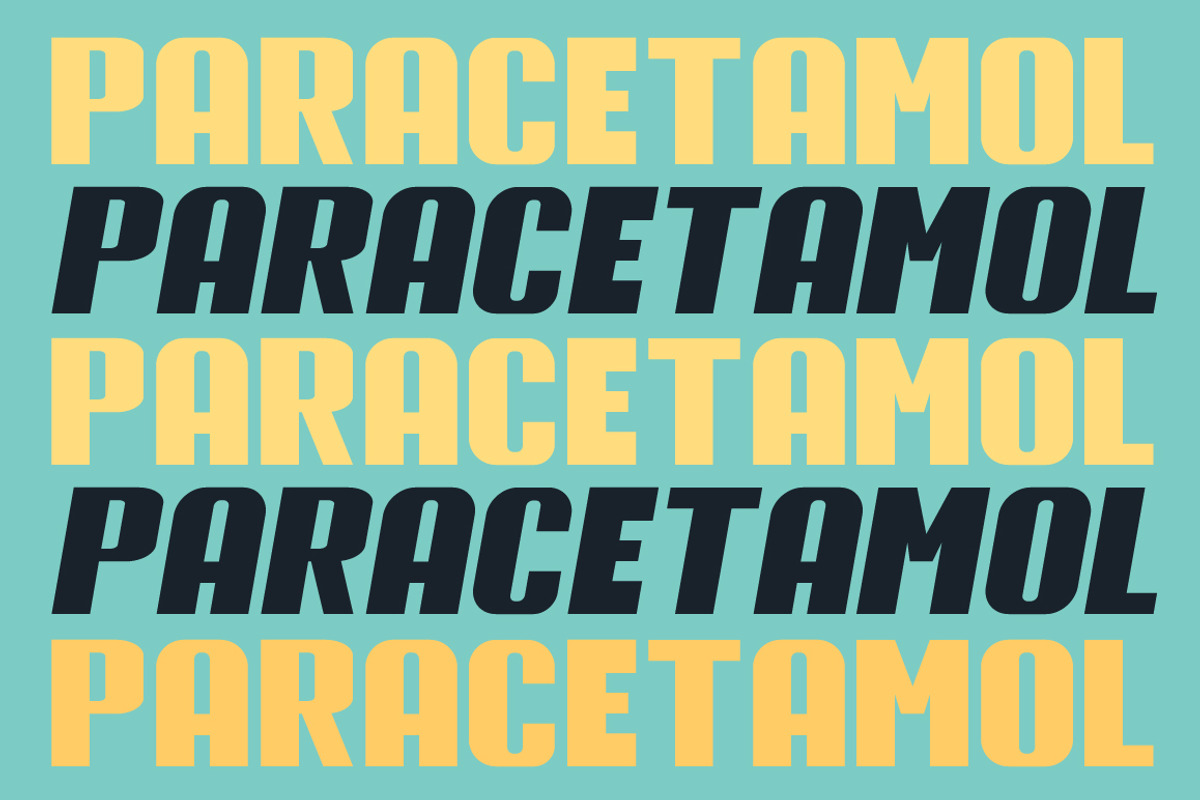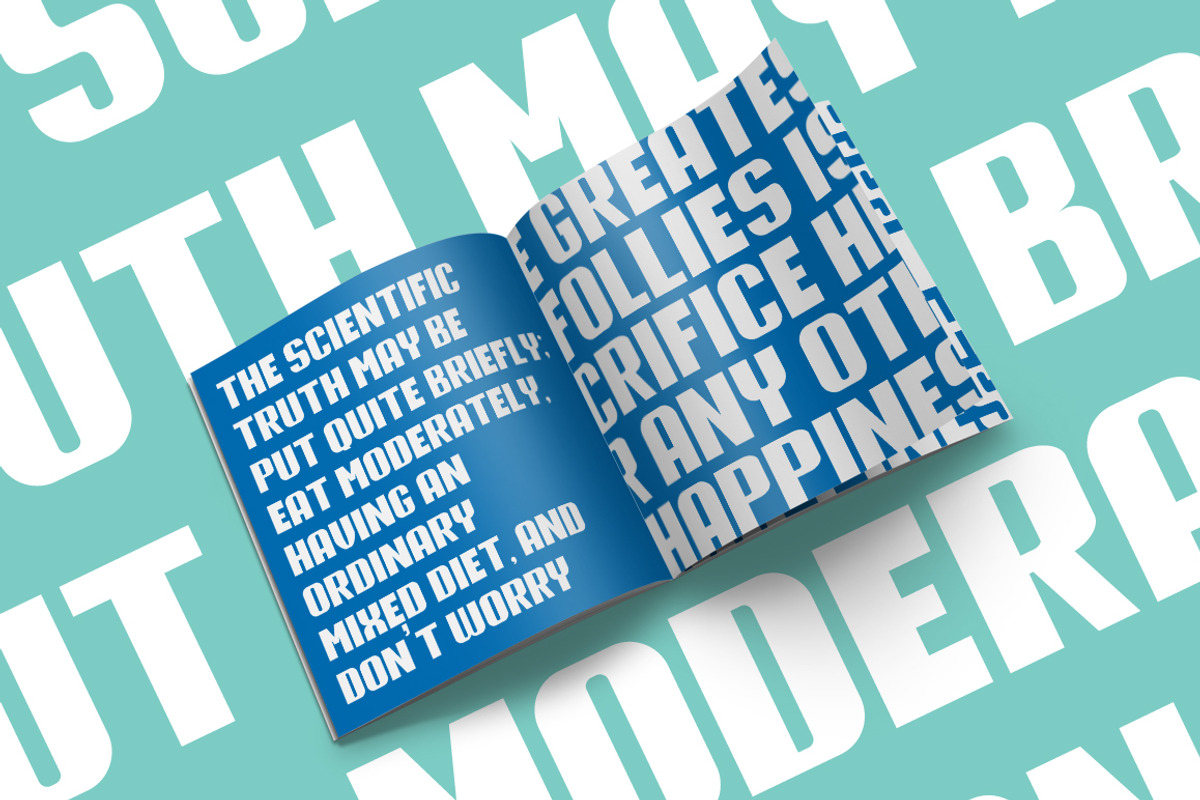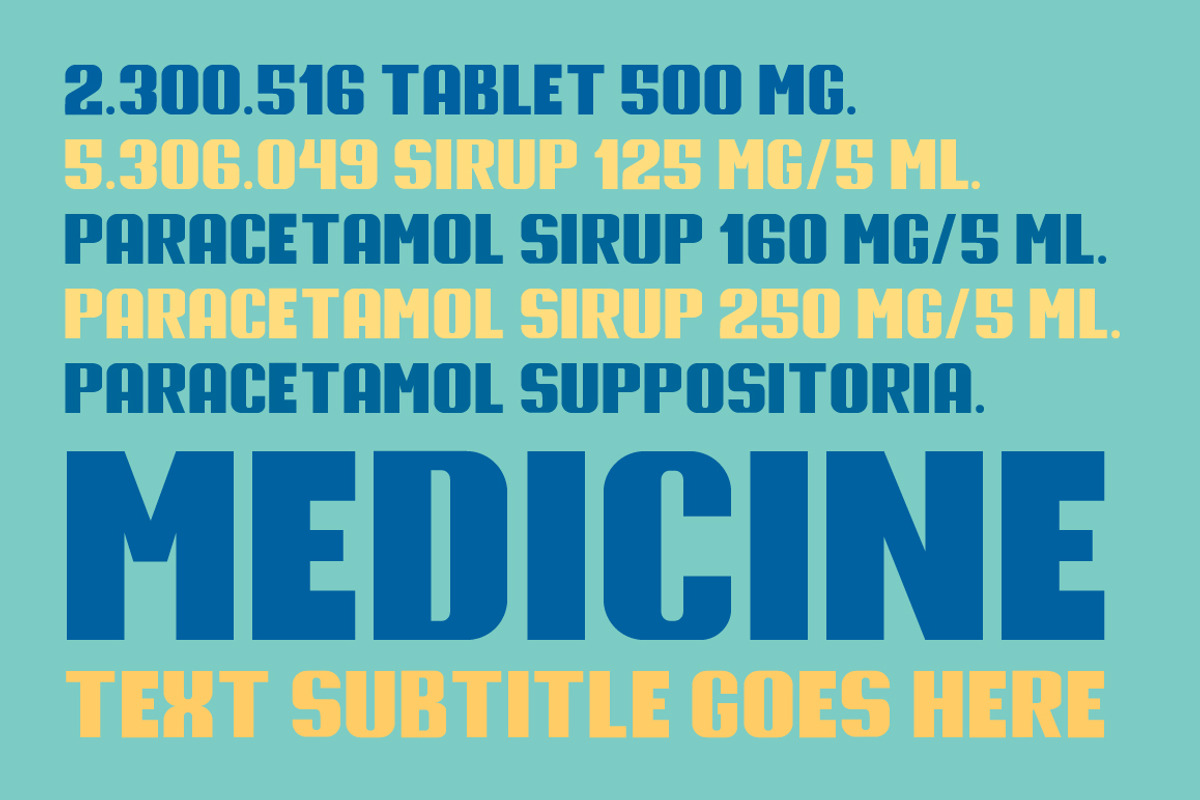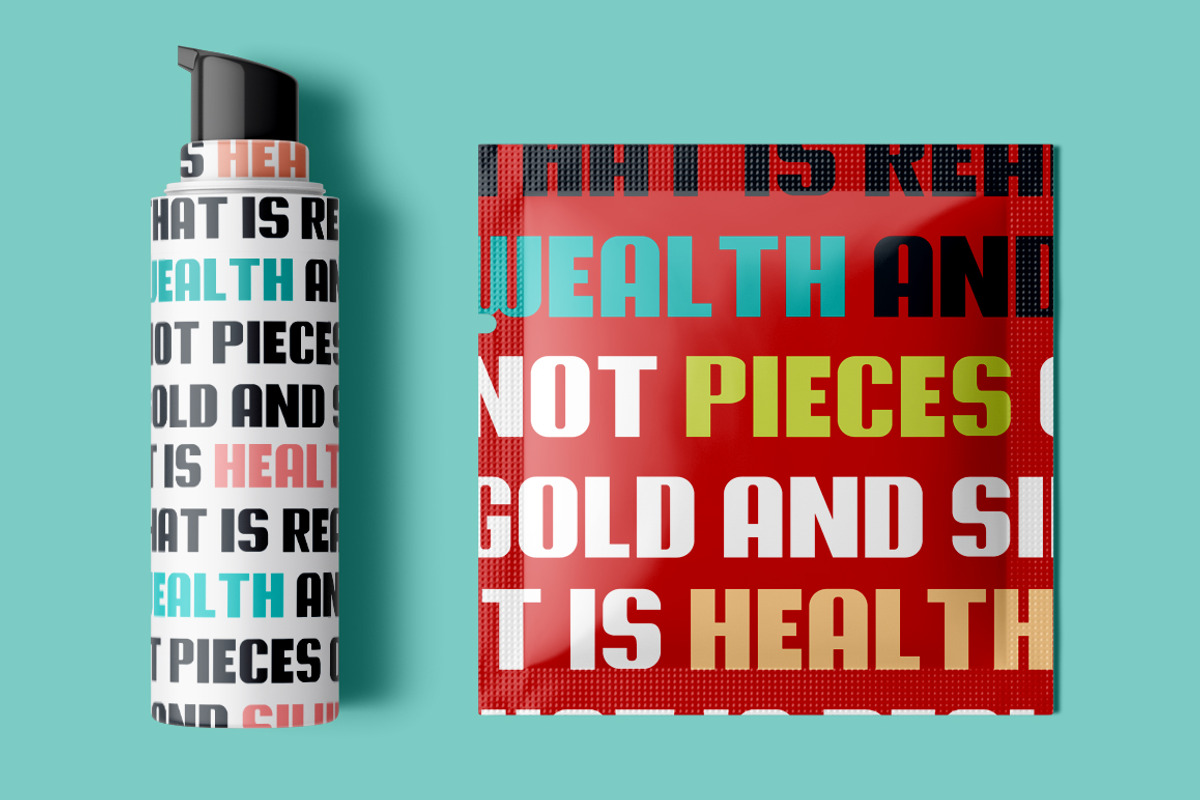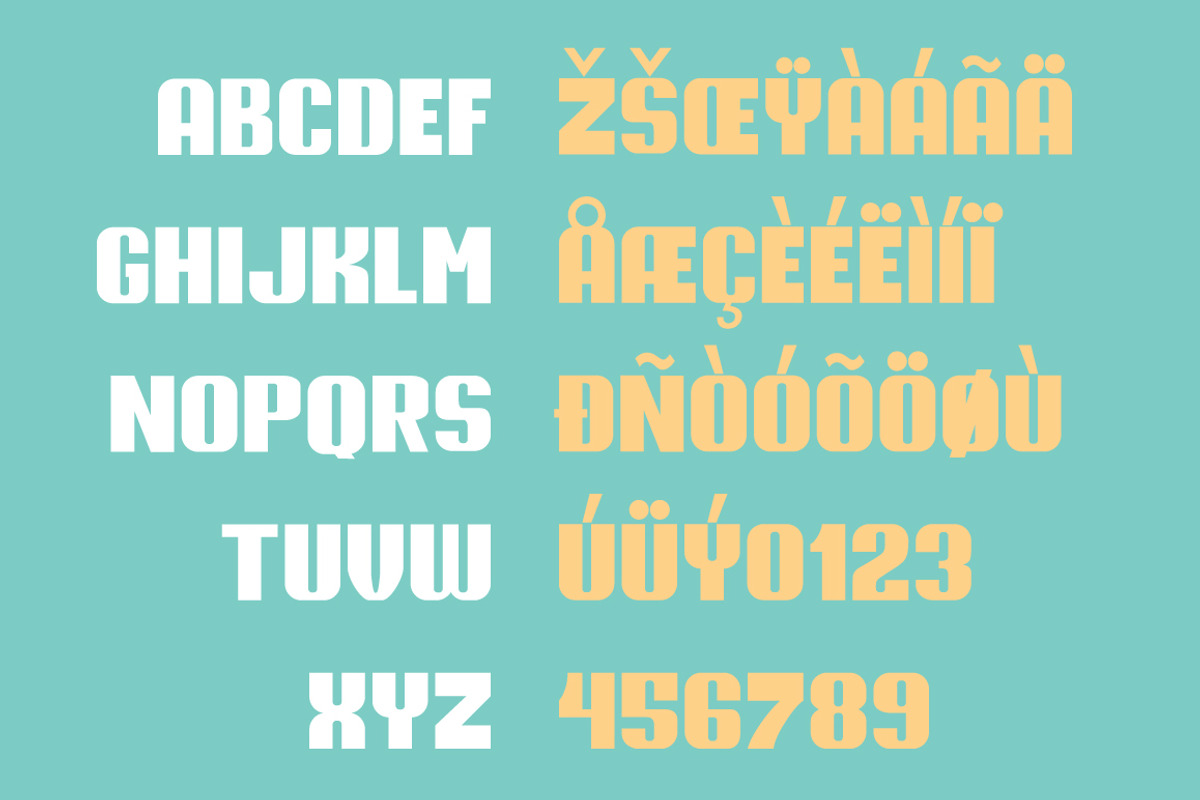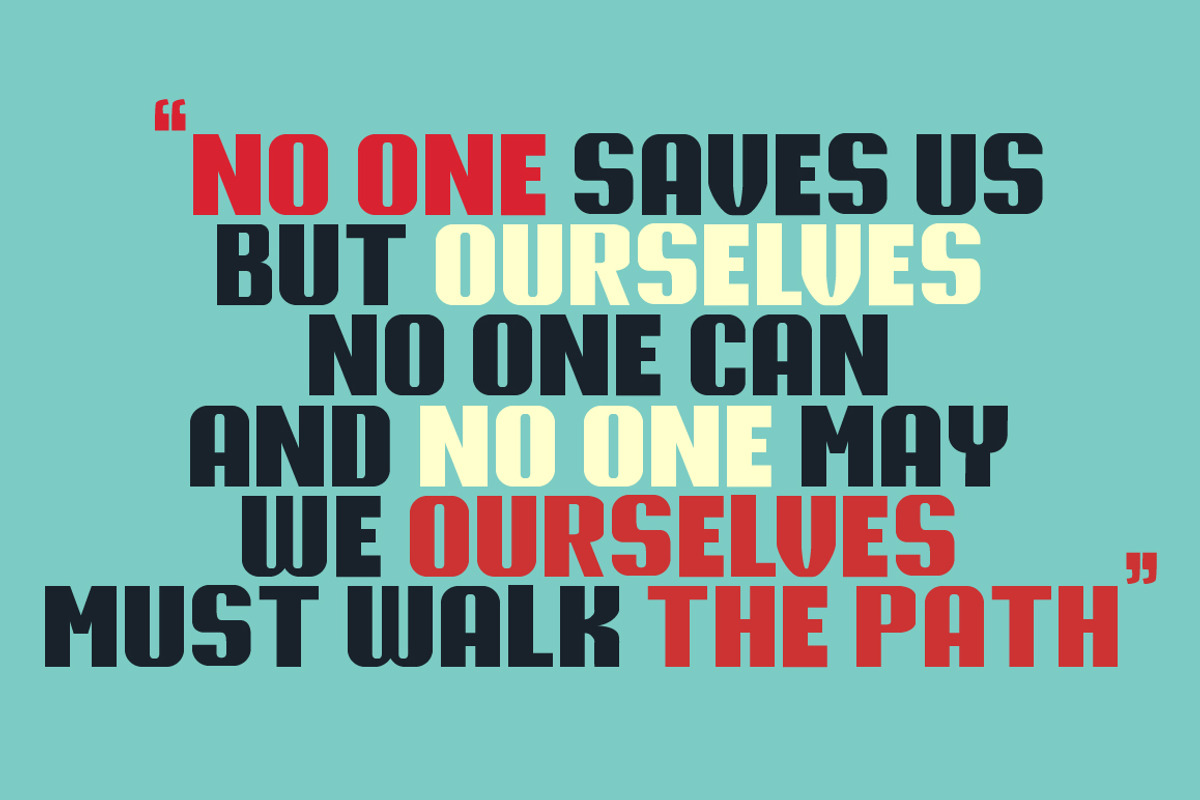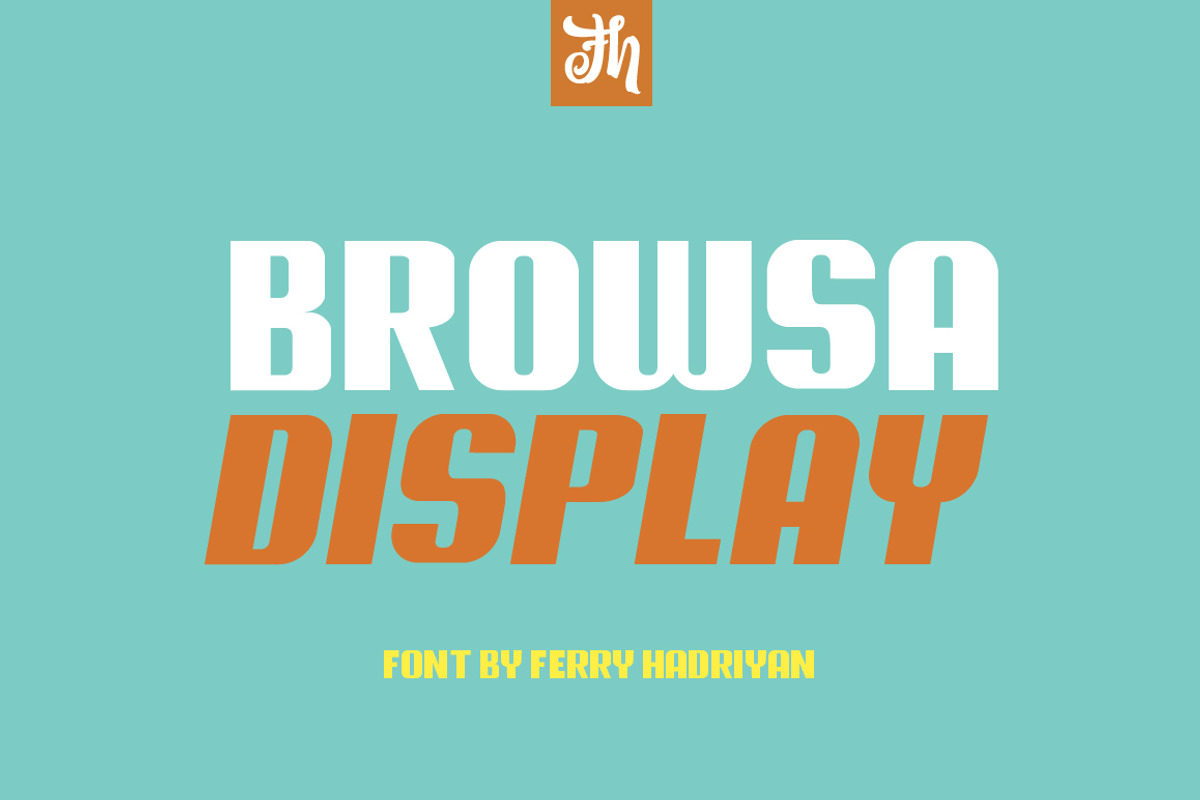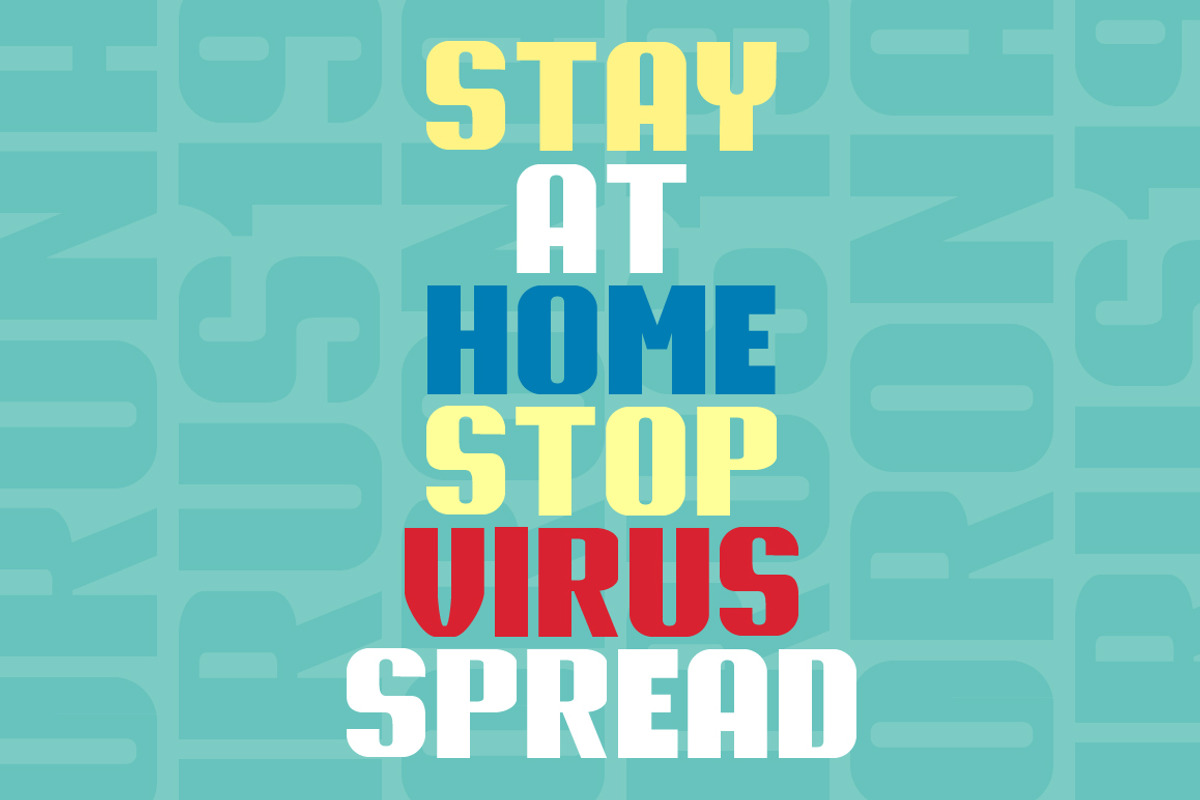
Browsa - Display Font
Browsa is display font suitable for design, logotype, element design, wedding, event, t-shirt, logo, badges, sticker, and awesome work, etc...
All Standard Character, Symbol, and Multilanguage
- Browsa Regular
- Browsa Slant Regular